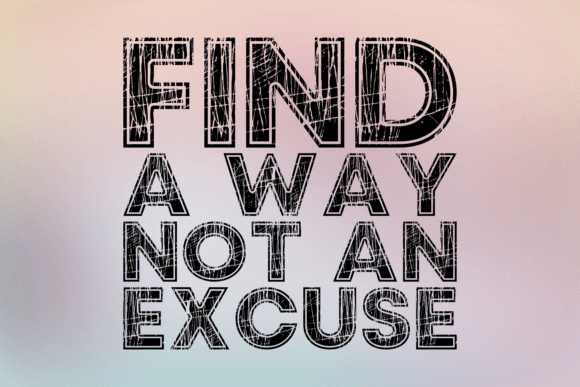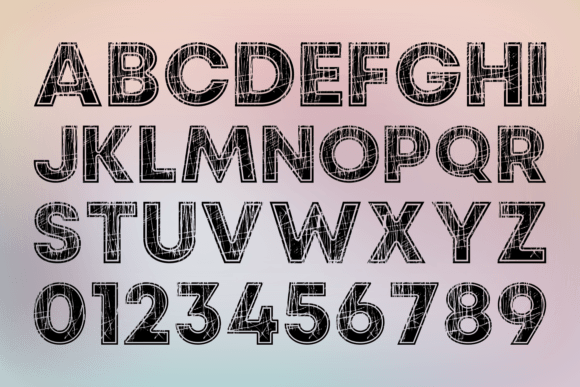
Introduction to Retroo Font
Have you ever been working on a creative project and suddenly, a spark of inspiration hits you? You envision the perfect design, with bold typography and a unique aesthetic that captures the essence of your vision. This is exactly what the Retroo Font is designed to help you achieve – a typographic masterpiece that elevates your designs to the next level.
As a valuable resource for designers, the Retroo Font offers a high-quality, versatile solution for making a lasting impression in your work. With its weathered texture and strong presence, this font is perfect for creating eye-catching headlines, powerful branding, and unforgettable posters. Whether you’re working on a design project with a transparent background or need a font to stand out on a busy layout, the Retroo Font is an excellent choice.
Key Features of Retroo Font
- Retro aesthetic design, ideal for vintage-themed creative projects and design resources.
- Comes in a single font style, perfect for those seeking a classic, timeless look for their free download design projects.
- Supports a wide range of languages, making it a versatile design resource for international creative projects.
- Designed to be highly legible, even at small font sizes, ensuring your message is conveyed clearly in various design contexts.
Honest Review: Retroo Font
As a designer, I’m always on the lookout for high-quality design resources to elevate my creative projects. Recently, I stumbled upon the Retroo Font, and I’m excited to share my honest review with you.
What works well: ✨ The Retroo Font is a great addition to any design project. Its unique, retro-inspired aesthetic is perfect for vintage-themed designs, and its transparent background makes it easy to layer with other elements. The font is also incredibly versatile, with a range of styles and weights to choose from.
Here are some key features I love about the Retroo Font:
- High-quality design with a unique, retro aesthetic
- Range of styles and weights to choose from
However, there are a few limitations to consider: ⚠️ The font may not be suitable for modern or minimalist designs, as its retro vibe can be overpowering. Additionally, the free download version may not include as many styles and weights as the paid version.
Overall, I’m impressed with the Retroo Font, and I think it’s a great addition to any design resource library. With its unique aesthetic and versatility, it’s perfect for creative projects that require a touch of vintage flair.
Retroo Font
Getting the Most Out of the Retroo Font
To get the most out of the Retroo Font, use it in conjunction with other design elements, such as graphics and images. Experiment with different font sizes and styles to create a unique look that fits your creative project.
The Retroo Font is commonly used in creative projects, such as graphic design, digital art, and typography. Its high-quality design and transparent background make it a versatile resource for a wide range of applications.